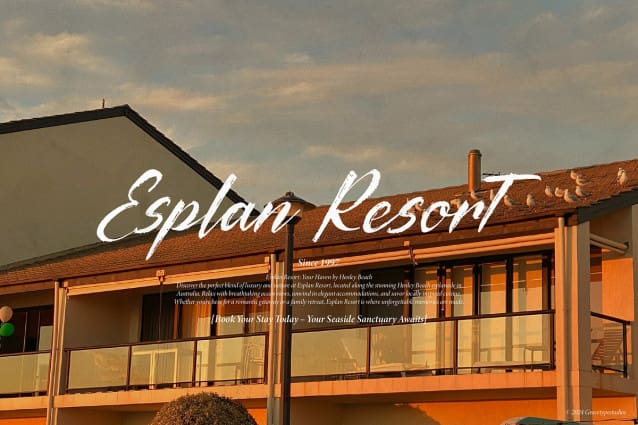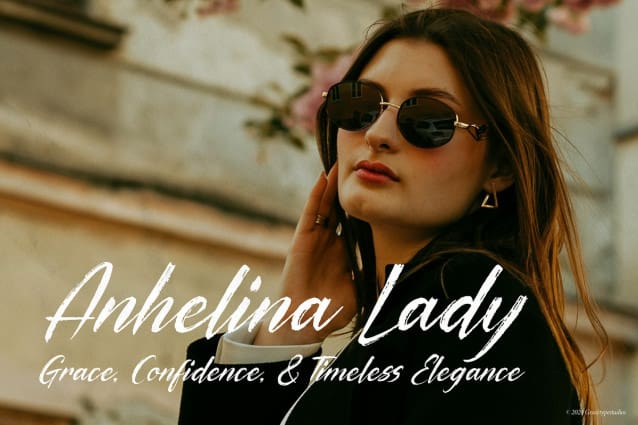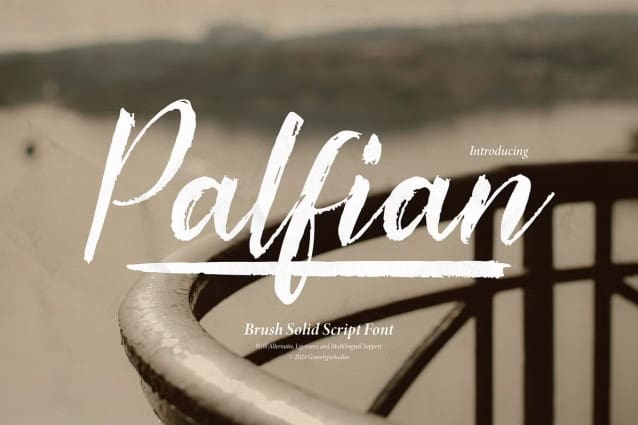
Palfian Brush Font
Palfian Brush Font | Brush Solid Script, from Gracetypestudio, suitable for any projects such as: logos, branding projects, homeware designs, product packaging, mugs, quotes, posters, shopping bags, t-shirts, book covers, name card, invitation cards, greeting cards, label, photography, watermark, special events, and all your other lovely projects that need a Brush Solid Script taste.